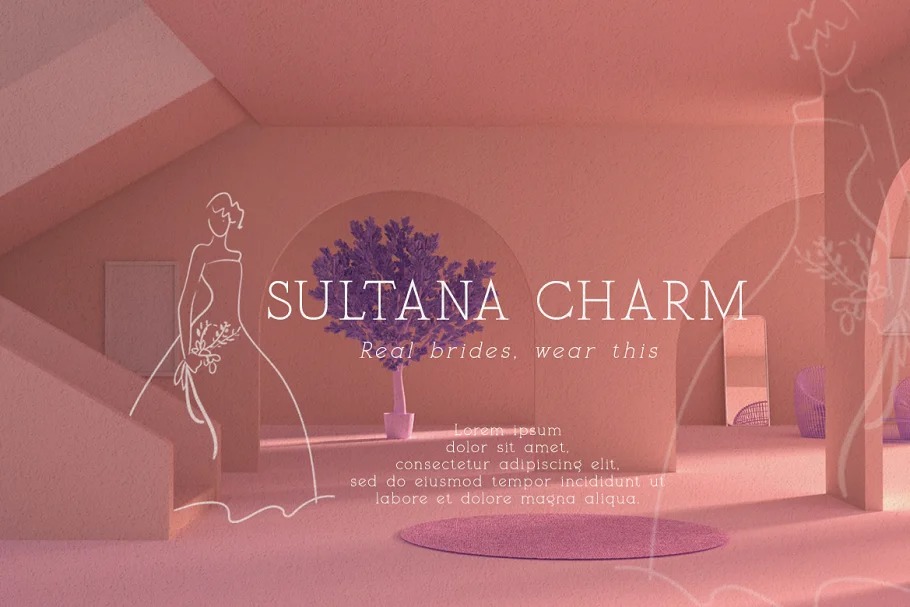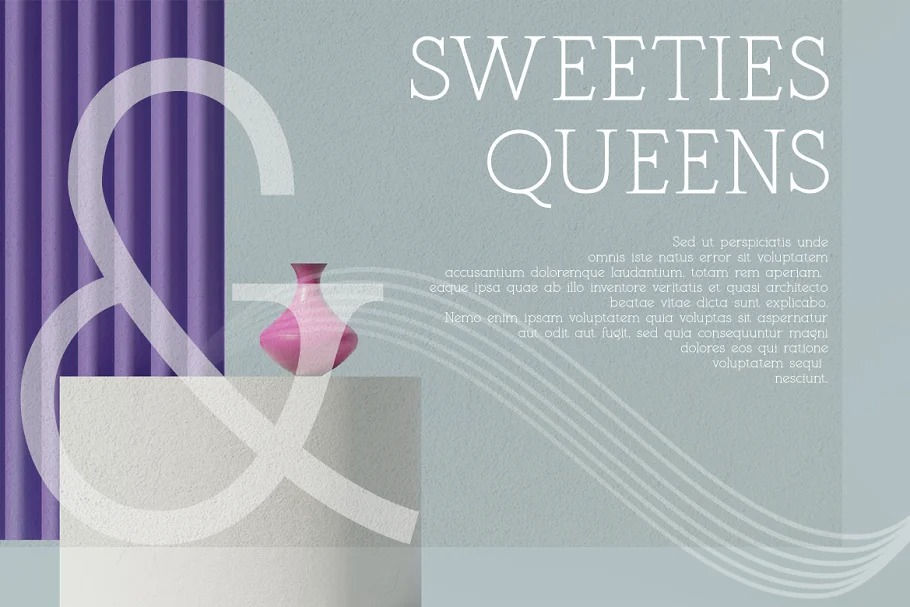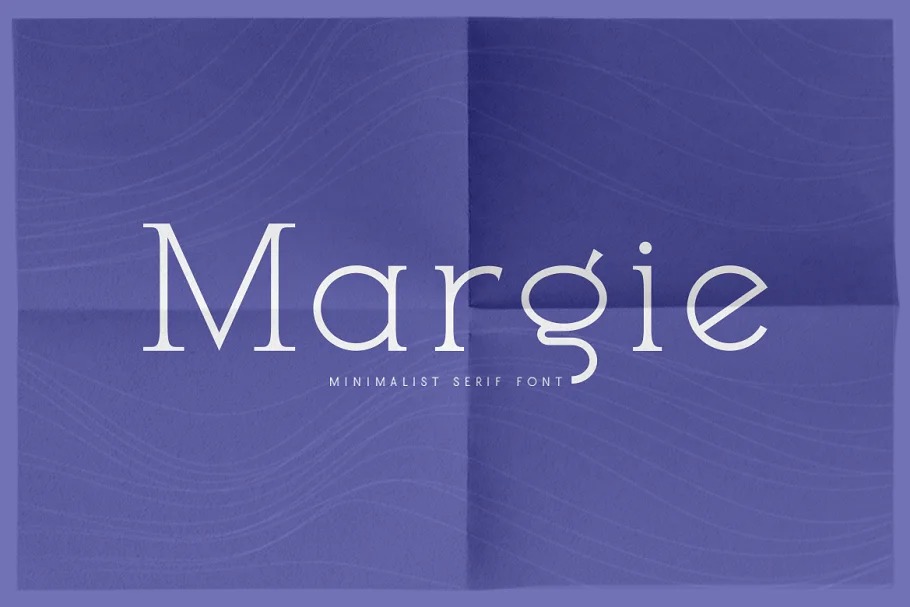
Margie Font
Margie Serif Font is a modern serif typeface that has a unique modern style & look. Margie is perfectly suited to stationery, logo, typography quotes, magazine or book cover, website header, clothing, branding, packaging design and more. A minimalist serif font containing uppercase and lowercase characters, numerals, a large range of punctuation, International language and ligatures.